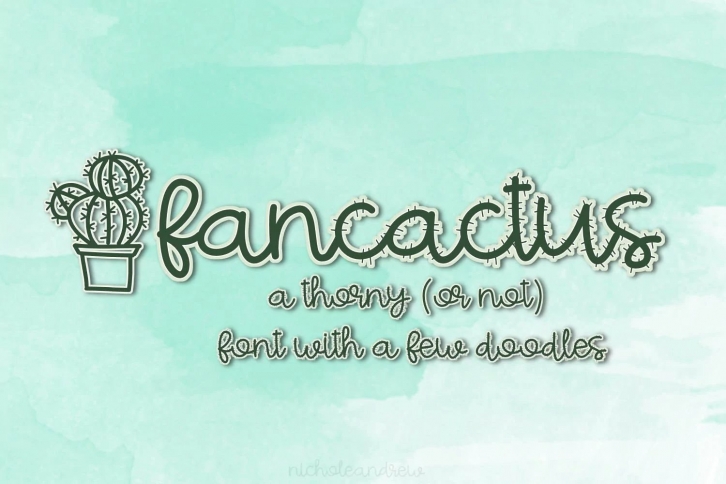
Fancactus is a thorny (or not) handwritten script font. Fancactus also comes with a few cactus doodles! This handwritten script font has both a thorny and not thorny option so that you can choose the look that works best for your project!